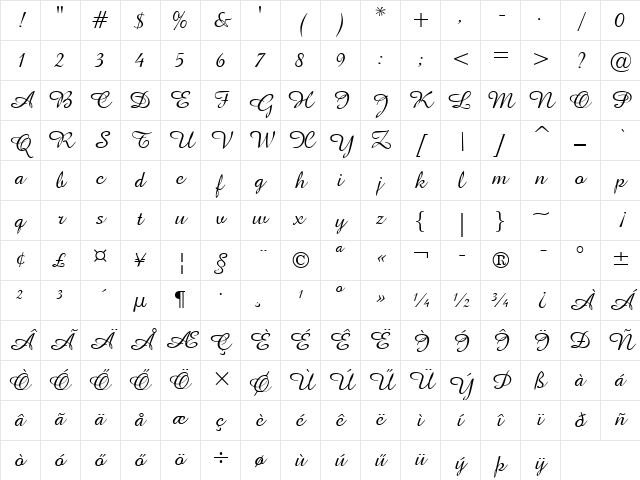
Hu_Ammonia Regular Free Font
Hu_Ammonia Regular
Design Context for Hu_Ammonia
Hu_Ammonia is a composed and adaptable typeface that performs quietly and consistently across a wide range of design contexts.